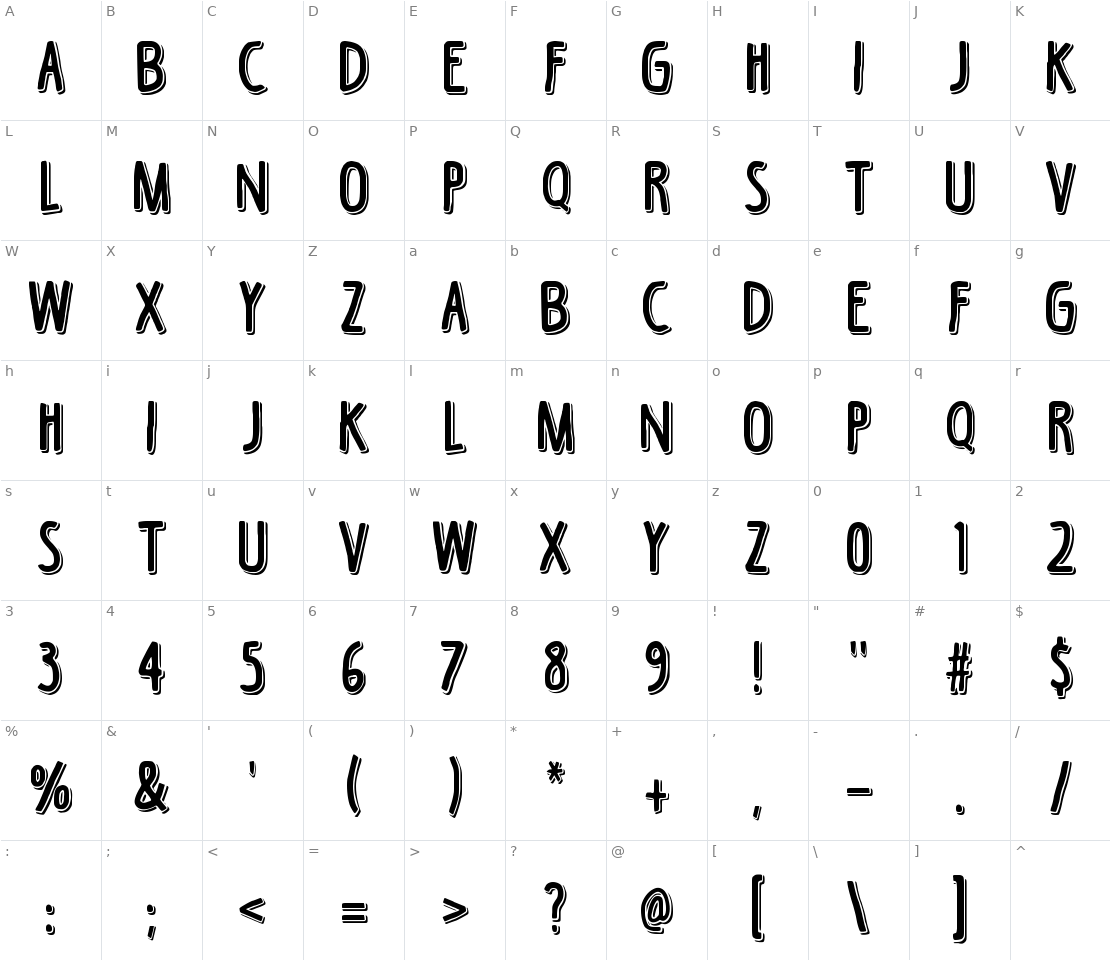
Black Coffee
by Jeremy Dixon
Black Coffee is a bold, uppercase comic-style display face by Jeremy Dixon with built-in shadow effects that give each letter a punchy, pop-out quality. The letterforms are casual and cartoonish, with enough playful energy to carry headlines, posters, and packaging without feeling stiff. It's the kind of typeface that wants to be loud and fun, not subtle.